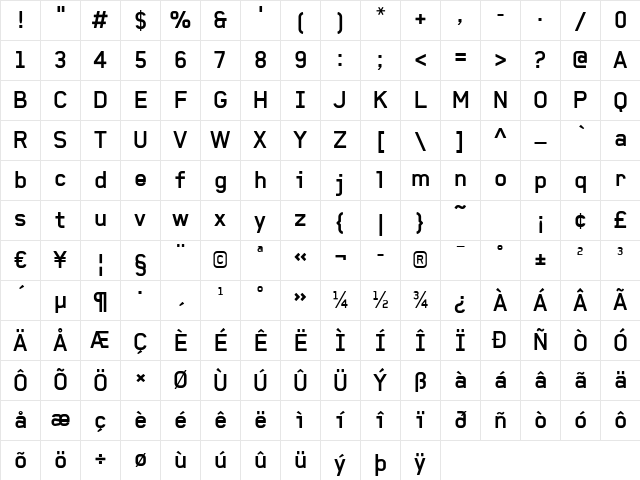
Baksheesh Bold Free Font
Baksheesh Bold
Design Context for Baksheesh
Baksheesh is a composed and adaptable typeface that performs quietly and consistently across a wide range of design contexts. Its bold stroke weight gives it real presence on the page.